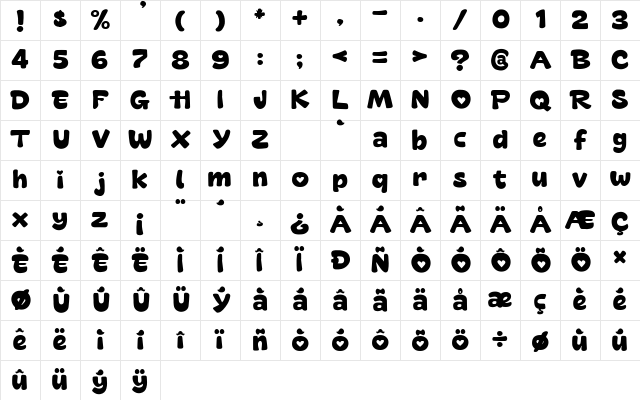
Complete Romantic Christmas Regular glyph index. Displaying only characters natively supported by Romantic Christmas Regular font.
Romantic Christmas is a composed and adaptable typeface that performs quietly and consistently across a wide range of design contexts.